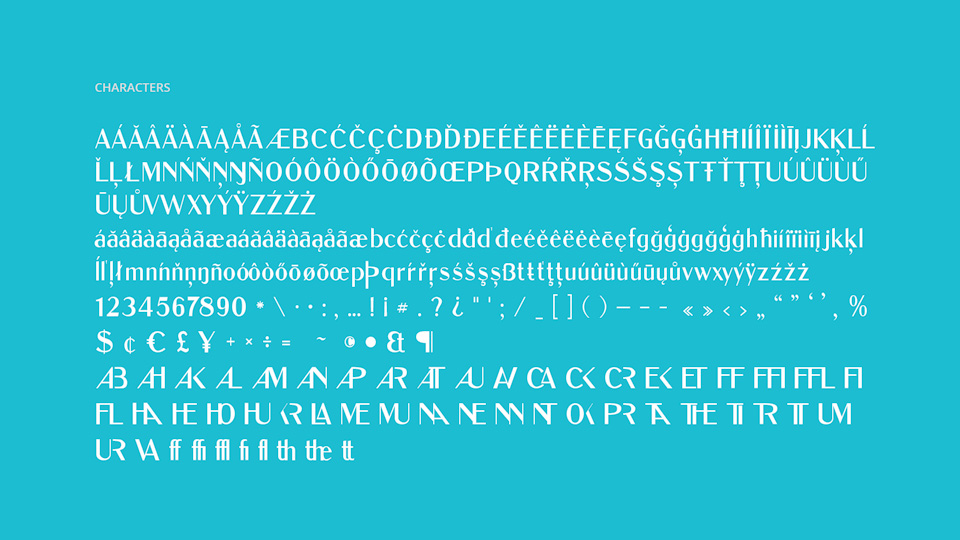
DUKAS is a revival, completely redrawn, of Studley, a metal typeface found in Specimen Book and Catalog (Inland Type Foundry, St. Louis, 1902).
DUKAS is a sans serif display font which presented in three styles: Regular, SemiBold and Bold. It would be most useful in poster, advertising, logo, headline, signage and greeting card design.
It also equipped by 60 discretionary glyphs to complement the font.
The font named DUKAS after the great French composer, Paul Dukas (1865-1935).